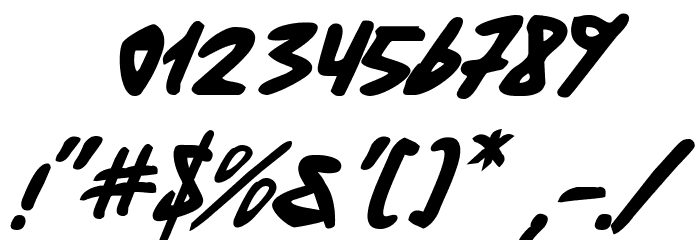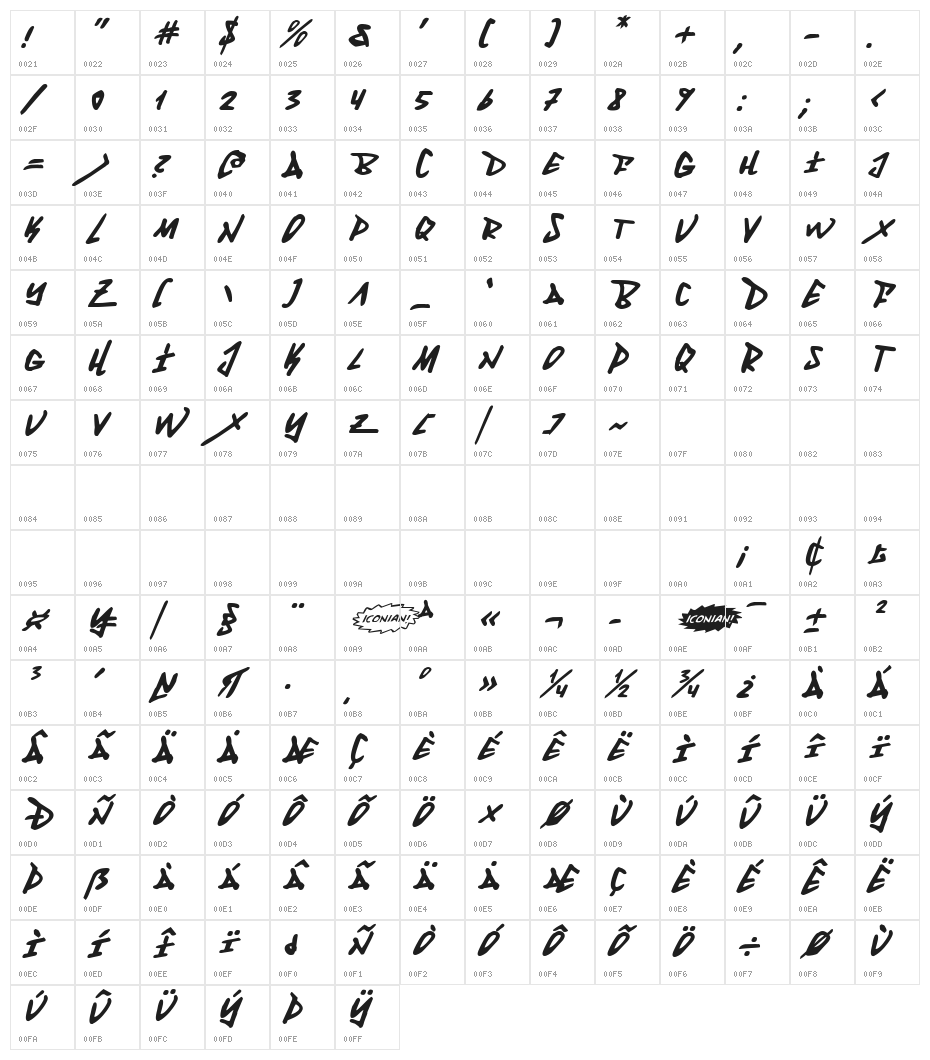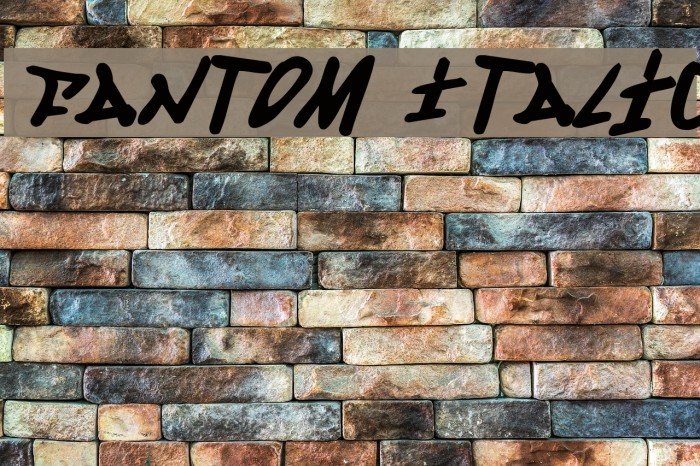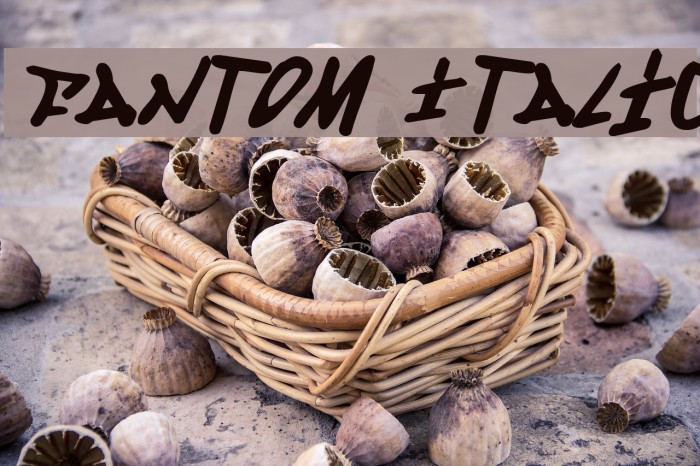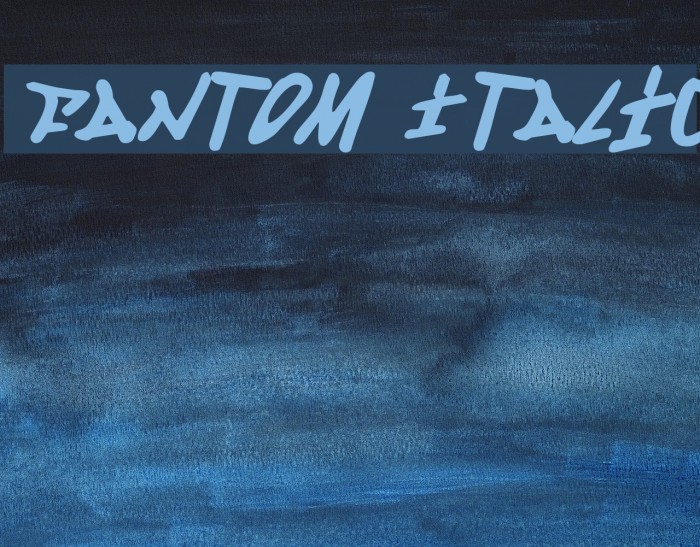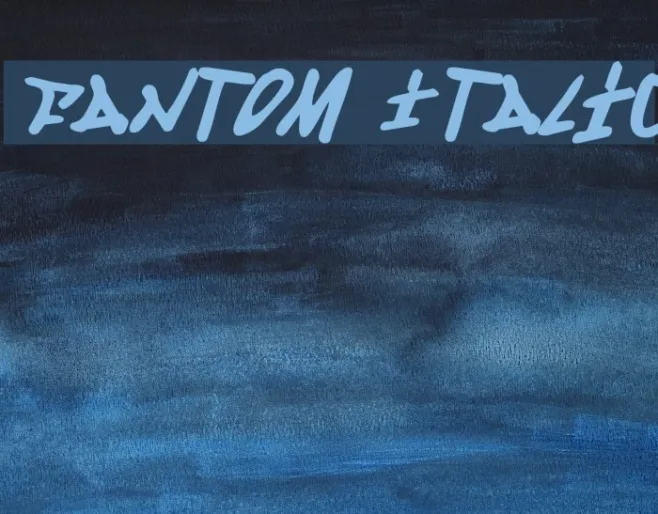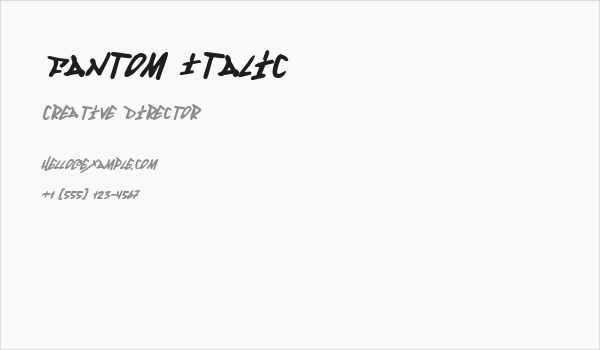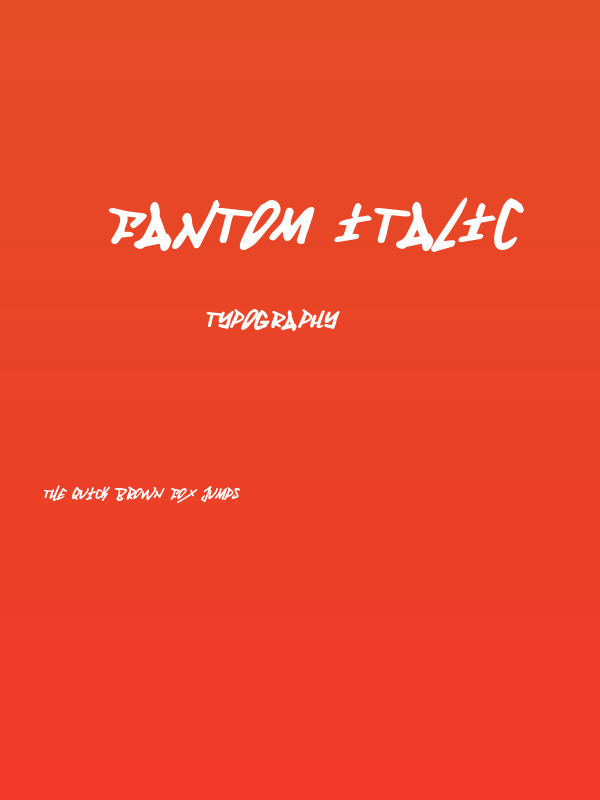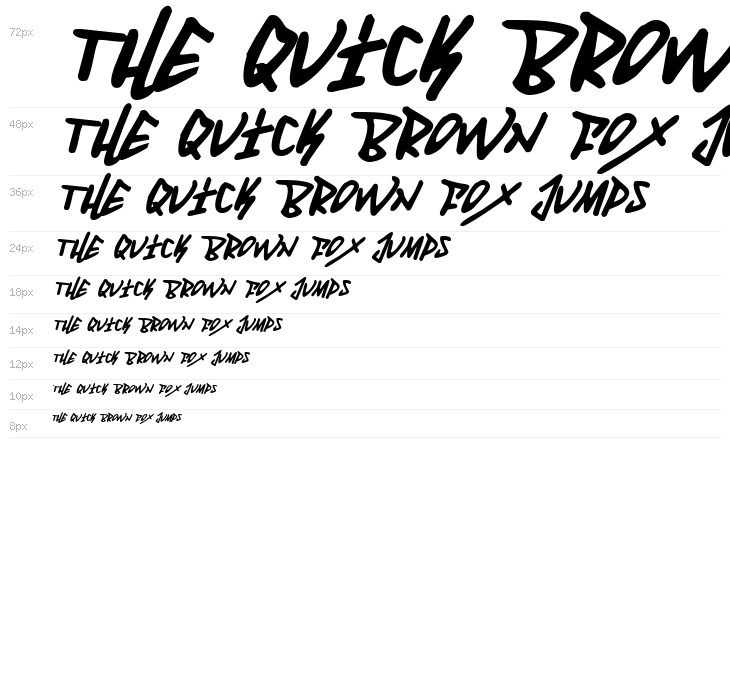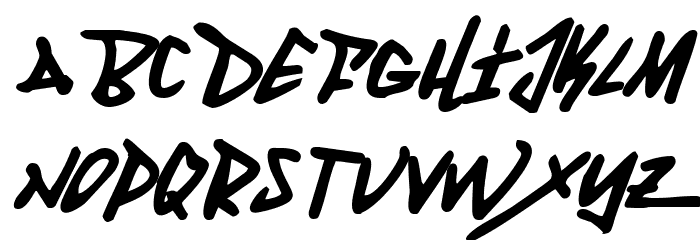
Fantom Italic Font
Fantom Italic Description
This font exudes a dynamic and energetic feel with its bold, italicized strokes. The characters are crafted with a brush-like appearance, giving them a handwritten, expressive quality. The uppercase and lowercase letters maintain a consistent slant, enhancing the sense of movement and fluidity. The numbers and special characters follow the same stylistic approach, ensuring uniformity across all glyphs. The overall design is both modern and artistic, suitable for projects that require a personal touch.
| Use Case | Logos, Posters, Creative Branding |
| Proposed Projects | Ideal for creative projects such as posters, logos, and branding materials that require a bold and personal touch. |